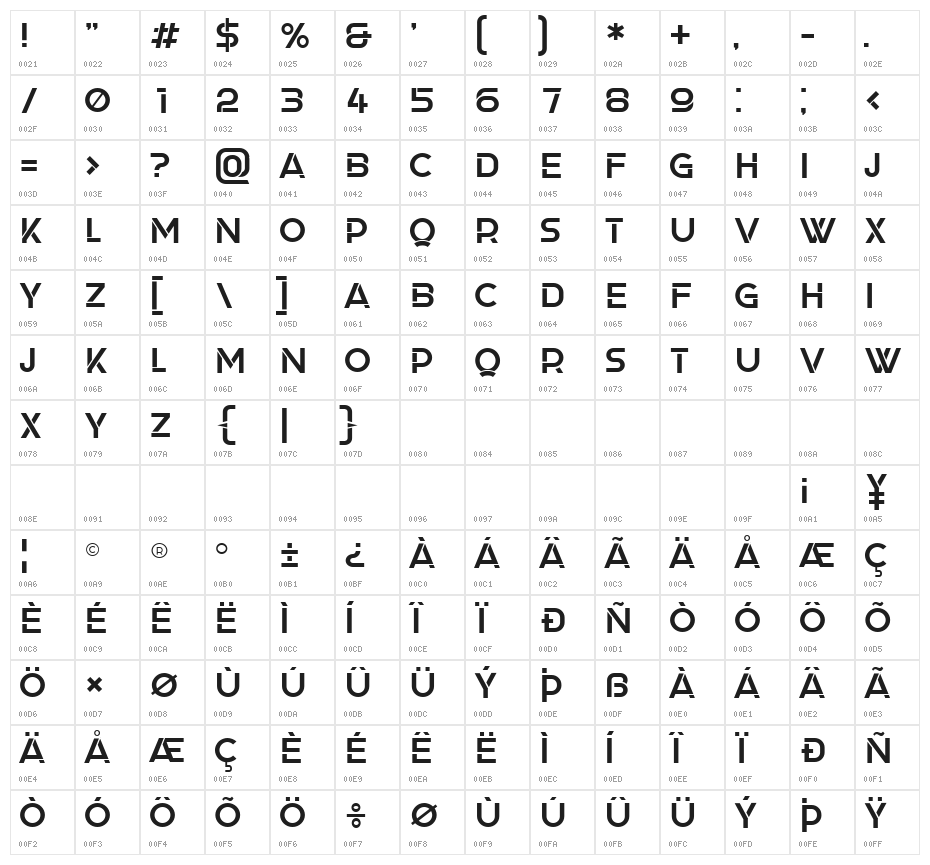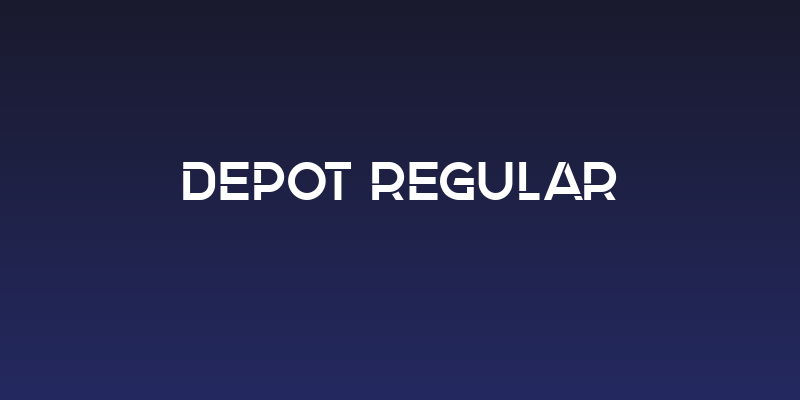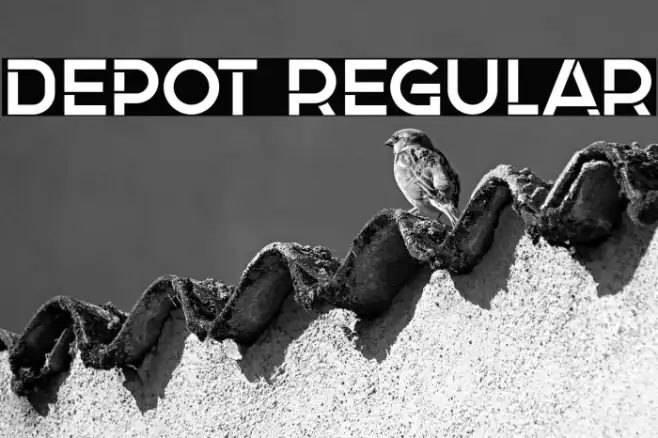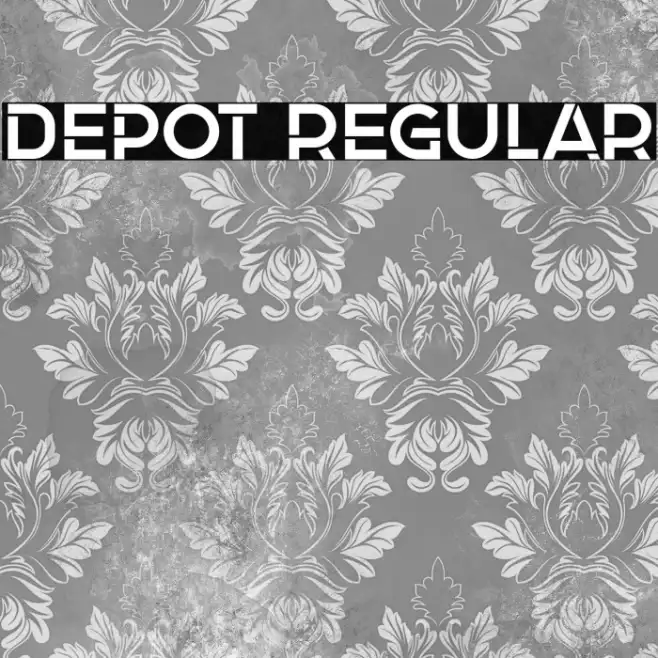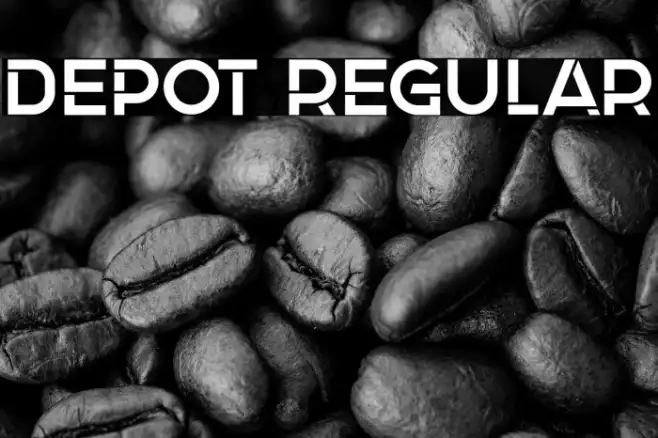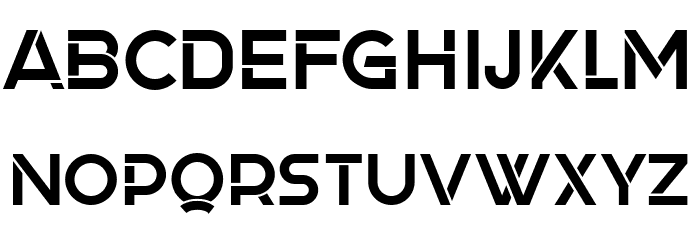
Depot Regular Font
Depot Regular Description
This font features a bold, geometric design with a modern and industrial feel. The characters are constructed with strong, straight lines and sharp angles, giving it a robust and assertive appearance. The uppercase and lowercase letters maintain a consistent style, with unique cutouts and angles that add a distinctive touch. The numerals are equally bold and follow the same geometric style, ensuring uniformity across all characters. Special characters are designed with the same attention to detail, making this font versatile for various design needs.
| Proposed Projects | Ideal for branding, posters, headlines, and any project requiring a strong, modern typeface. |